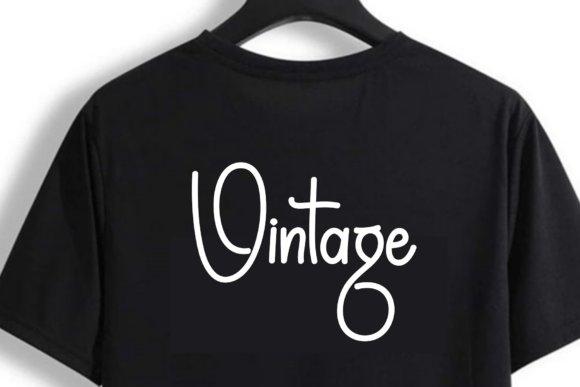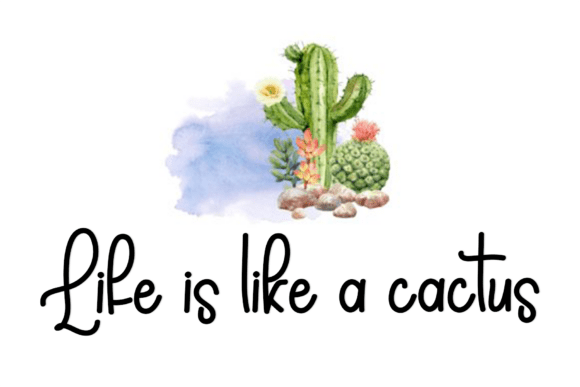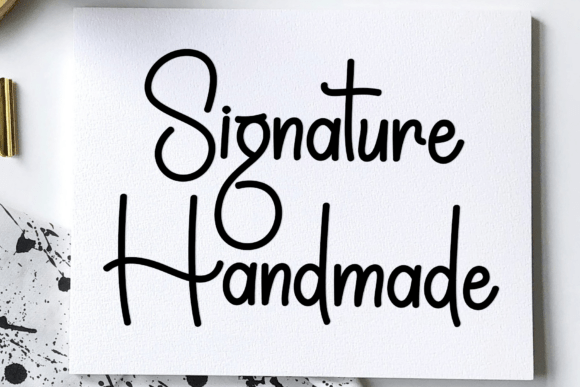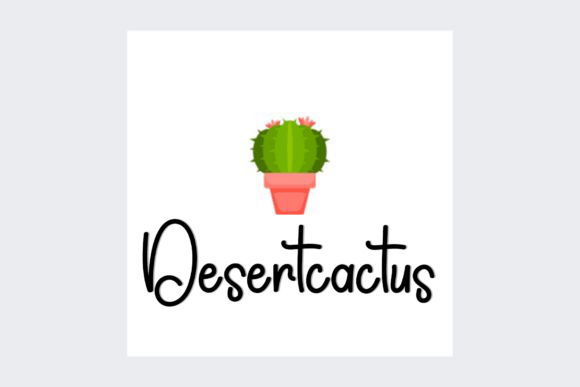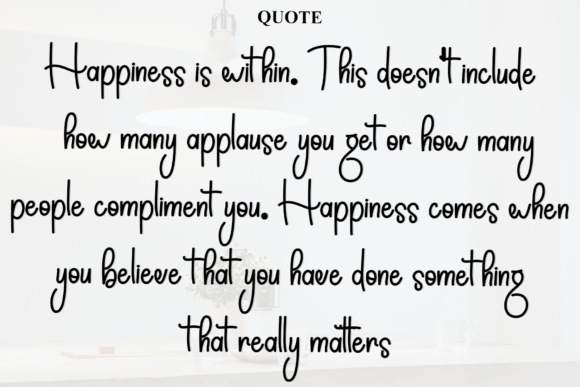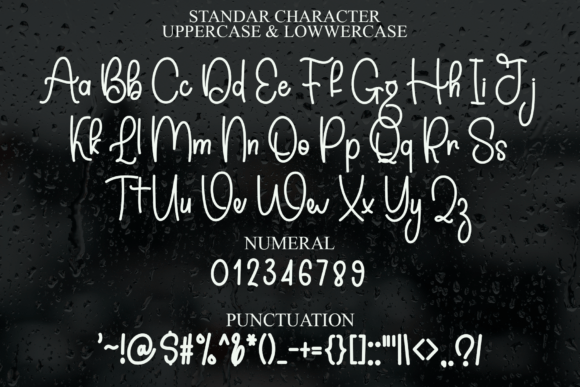
Cute Single Font: The Perfect Choice for Creative Designs
Are you looking for a font that can add a personal touch to your designs? Look no further than Cute Single Font. This casual and creative font is perfect for designers and crafters who want to create unique and eye-catching designs. In this article, we’ll explore the features and benefits of Cute Single Font and how it can elevate your designs.
What is Cute Single Font?
Cute Single Font is a hand-drawn font that exudes warmth and friendliness. Its round, playful strokes create a relaxed and approachable feel, making it perfect for personal projects, invitations, and social media graphics. The font’s charming aesthetic adds a fun and unique touch to any design, making it stand out from more traditional fonts.
Key Features of Cute Single Font
- Hand-Drawn Aesthetic: The font’s hand-drawn aesthetic gives it a unique and personal touch, making it perfect for designs that require a human touch.
- Playful Strokes: The font’s round, playful strokes create a relaxed and approachable feel, making it perfect for designs that require a friendly tone.
Benefits of Using Cute Single Font
So, why should you choose Cute Single Font for your designs? Here are just a few benefits of using this font:
- Unique Designs: Cute Single Font allows you to create unique and eye-catching designs that stand out from the crowd.
- Personal Touch: The font’s hand-drawn aesthetic adds a personal touch to your designs, making them more relatable and engaging.
- Versatility: Cute Single Font is perfect for a wide range of designs, including personal projects, invitations, social media graphics, and more.
Design Ideas Using Cute Single Font
Cute Single Font is perfect for a wide range of designs. Here are a few ideas to get you started:
- Personal Projects: Use Cute Single Font to create unique and eye-catching designs for personal projects, such as photo albums or scrapbooking.
- Invitations: The font’s playful aesthetic makes it perfect for invitations, such as birthday parties or baby showers.
- Social Media Graphics: Use Cute Single Font to create engaging and eye-catching social media graphics, such as quotes or promotions.
- Crafting: The font is perfect for crafters who want to add a personal touch to their projects, such as sewing or paper crafting.
Cute Single Font is a versatile and creative font that is perfect for designers and crafters who want to add a personal touch to their designs. With its hand-drawn aesthetic, playful strokes, and PUA Encoded glyphs, this font is sure to elevate your designs and make them stand out from the crowd. Whether you’re working on personal projects, invitations, or social media graphics, Cute Single Font is the perfect choice.